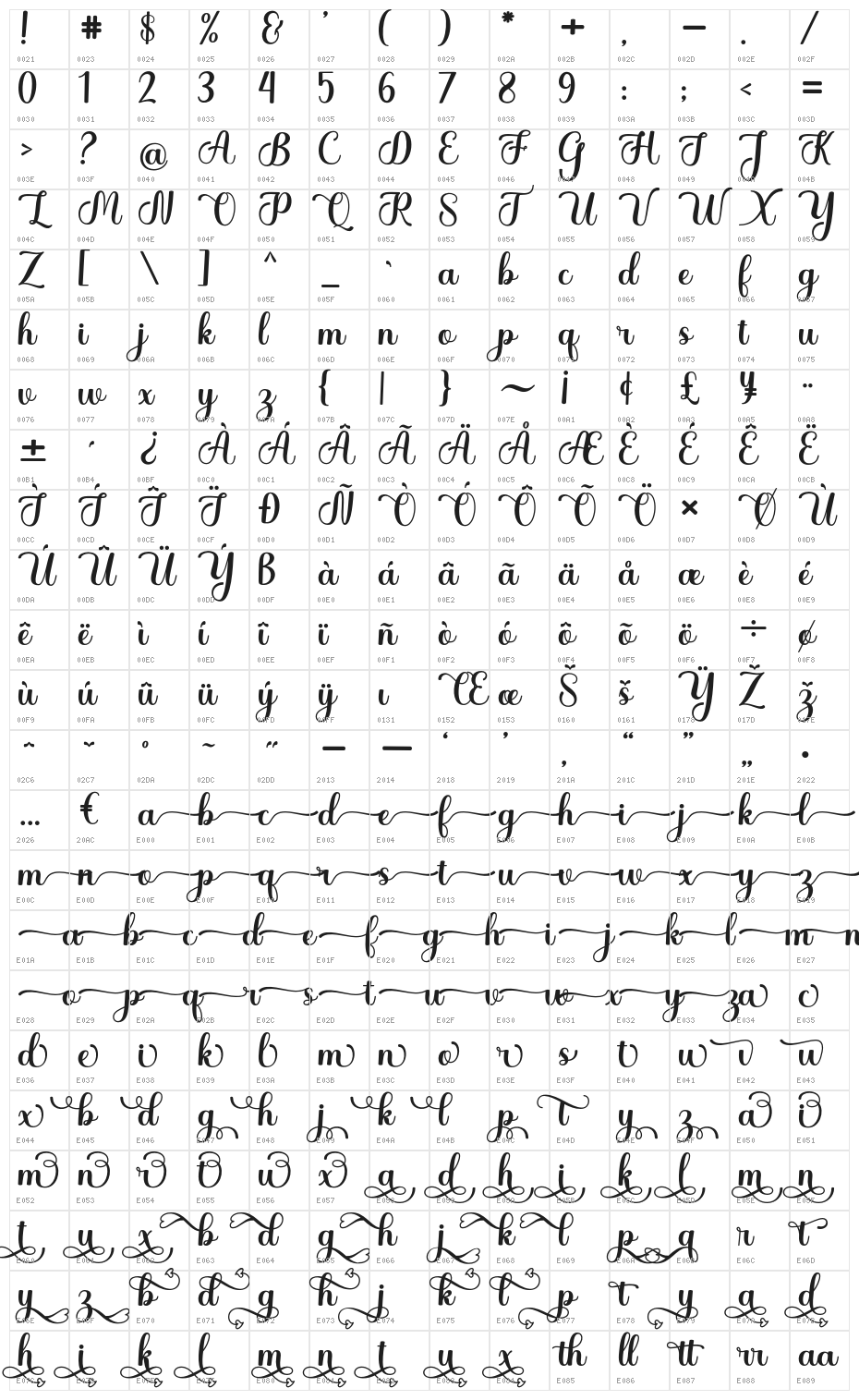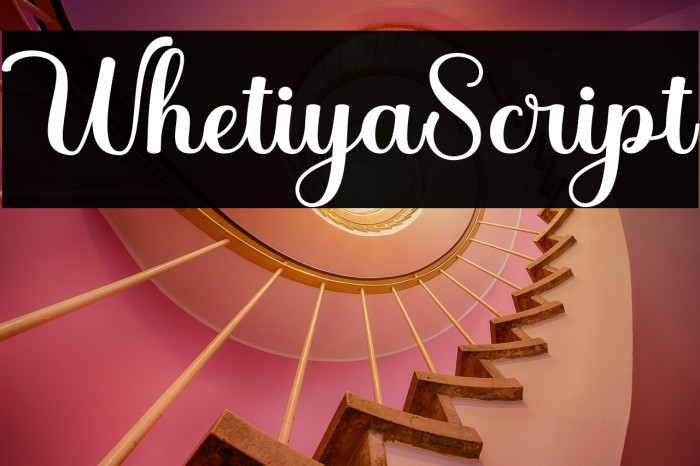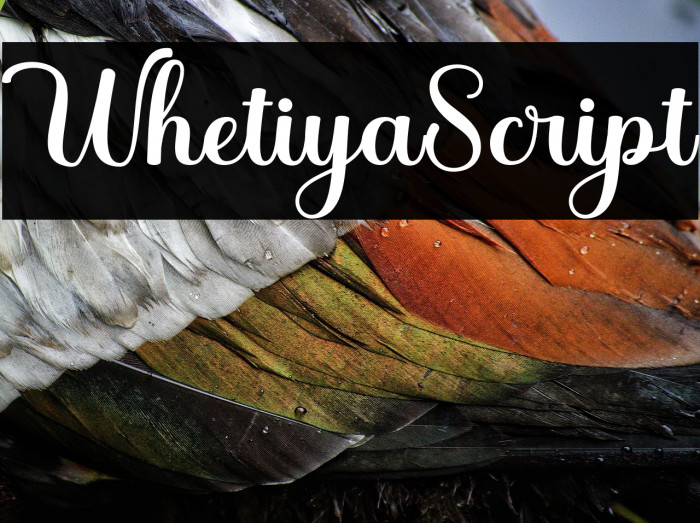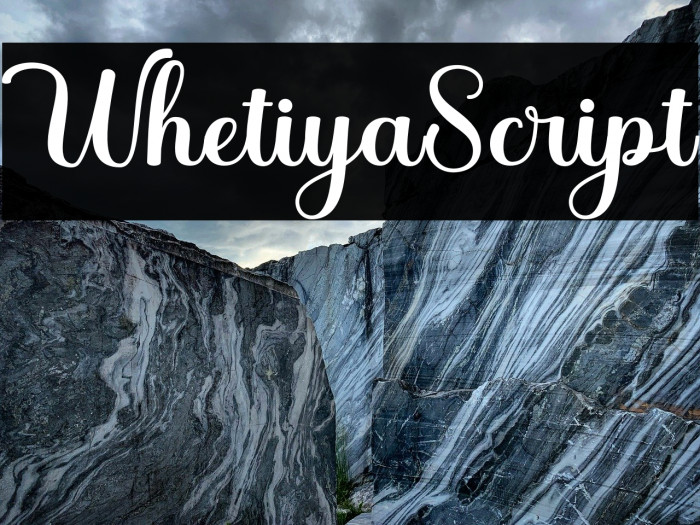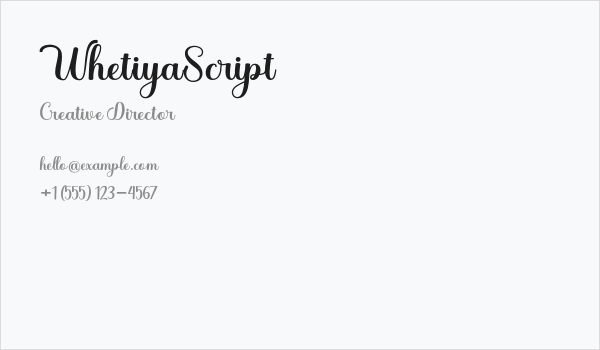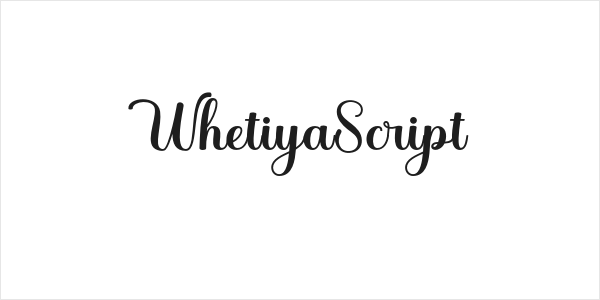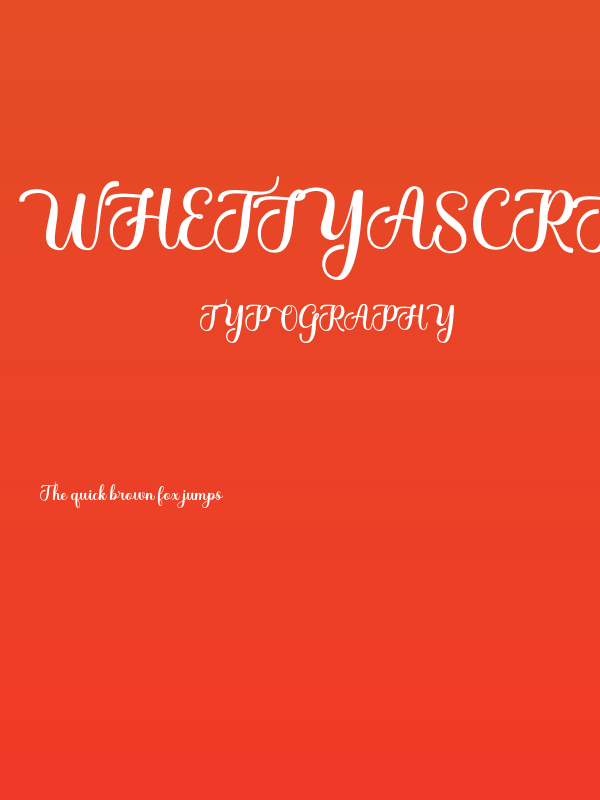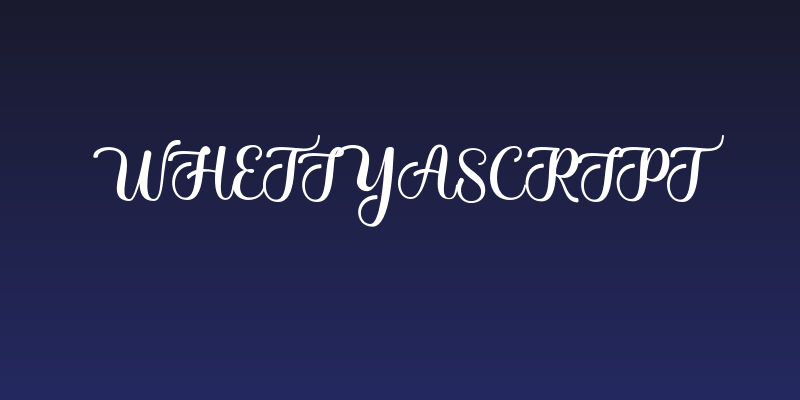
WhetiyaScript Font
WhetiyaScript Description
This font features a flowing, cursive style with elegant loops and swirls, giving it a handwritten appearance. The uppercase letters are tall and slender, with graceful curves that enhance their decorative appeal. The lowercase letters maintain a consistent style, with smooth connections between characters, creating a seamless and fluid text line. The numerals are bold and slightly more upright, providing a clear contrast to the letters. Special characters are integrated with the same flowing style, ensuring a cohesive look across all elements. This font exudes a sense of elegance and sophistication, making it ideal for projects that require a touch of class and personality.
| Overall Style | Elegant |
| Use Case | Logos, Invitations, Decorative text |
| Proposed Projects | Ideal for wedding invitations, greeting cards, elegant branding, and personal stationery. |